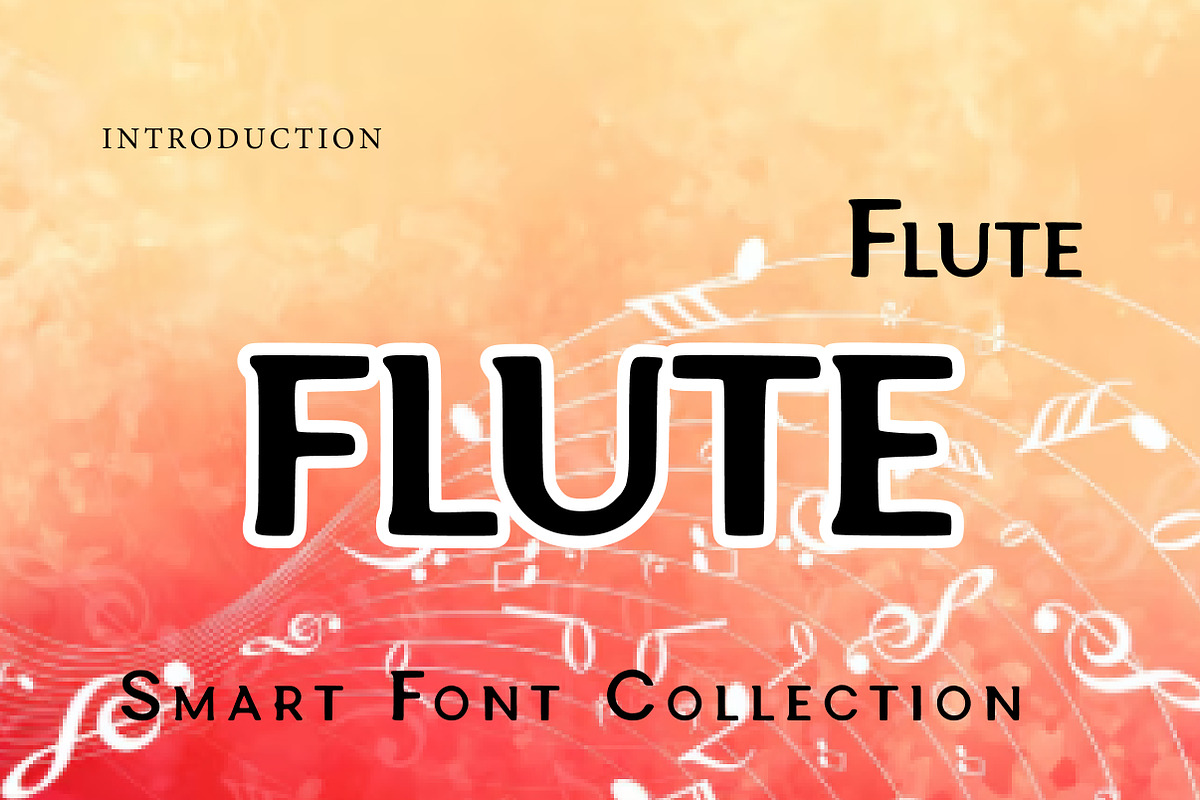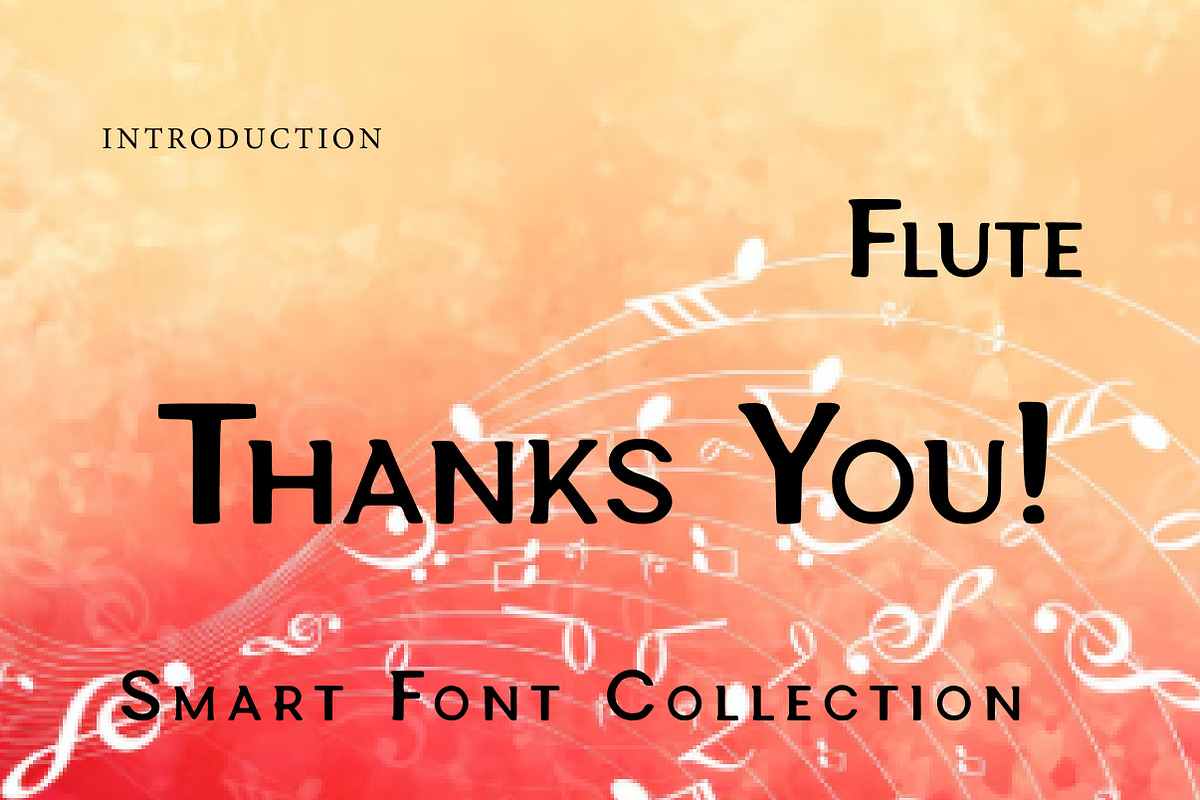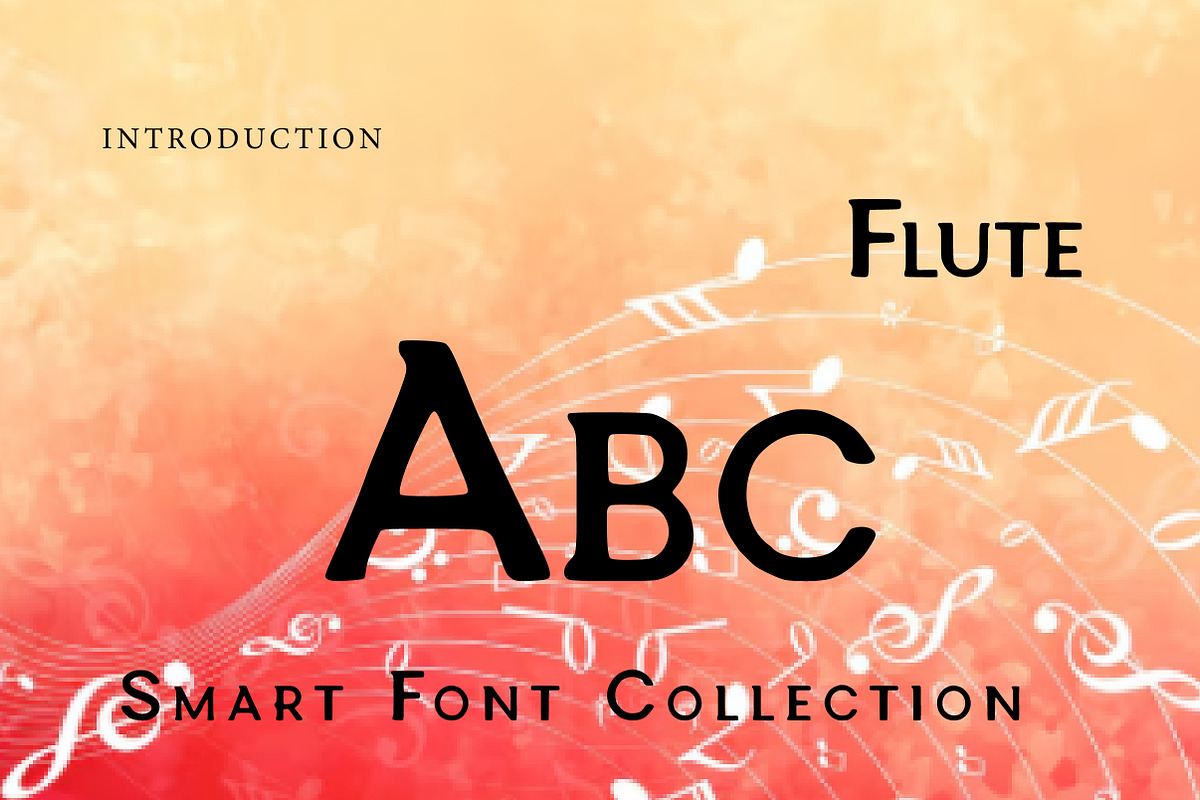
Flute
Flute is a bold, hand-drawn display font with a clean, friendly, and slightly quirky personality. Its thick strokes, soft corners, and simple letter shapes give it a playful handmade feel while staying highly readable. The overall look is minimal yet expressive—perfect for modern designs that need a fun, casual headline style.
Bring bold simplicity and handmade charm to your typography with Flute.